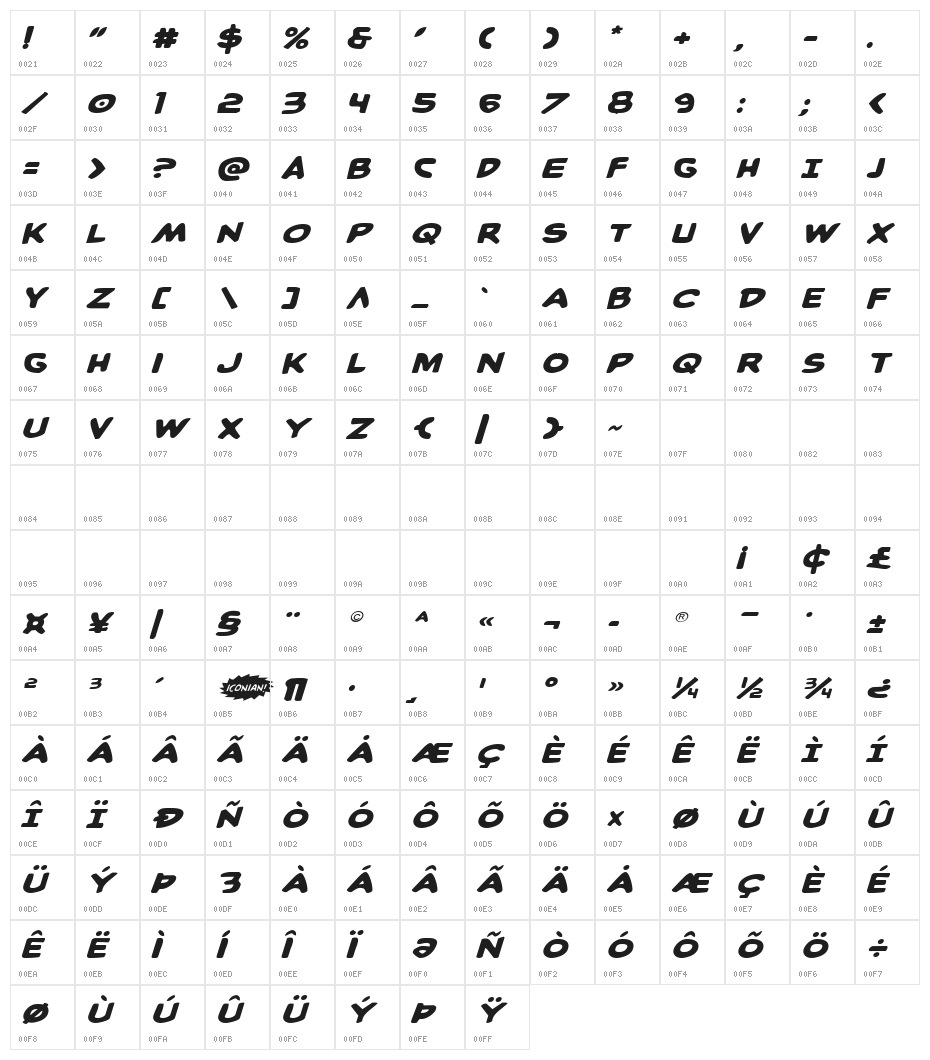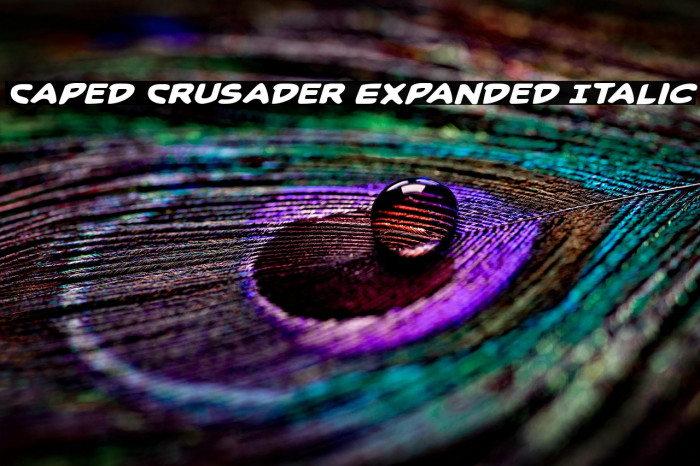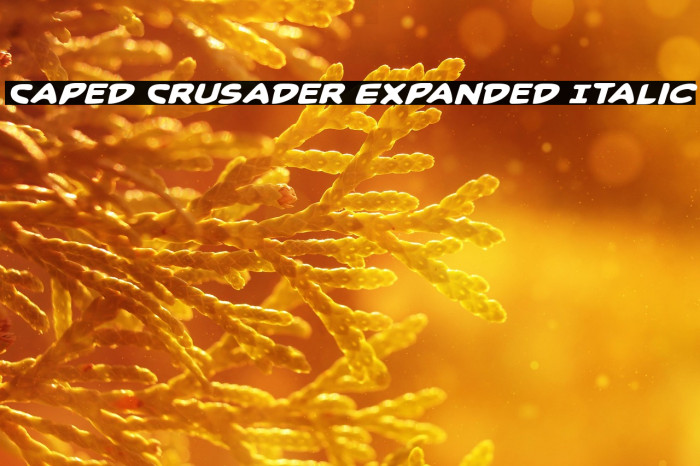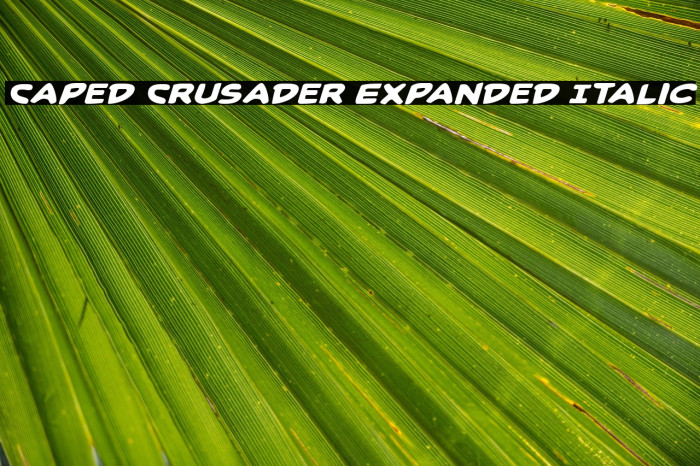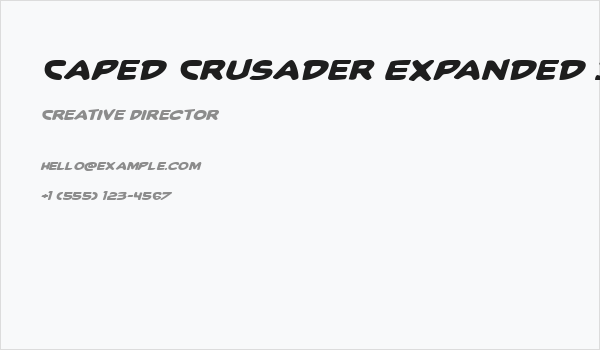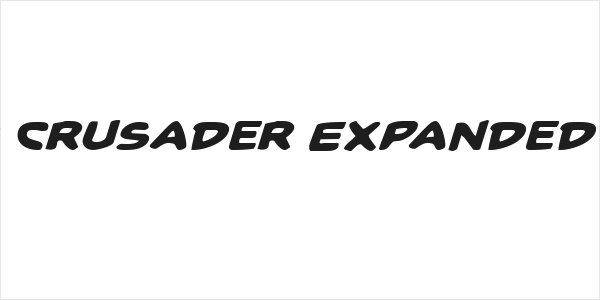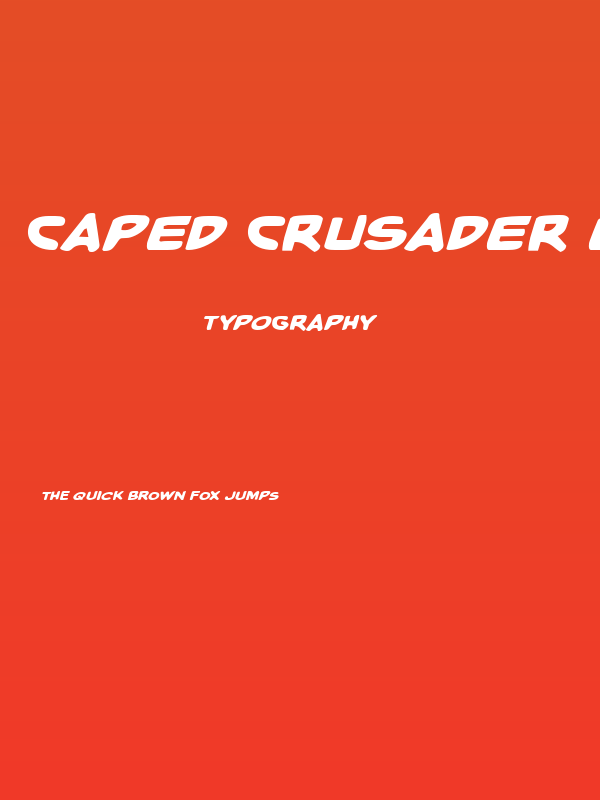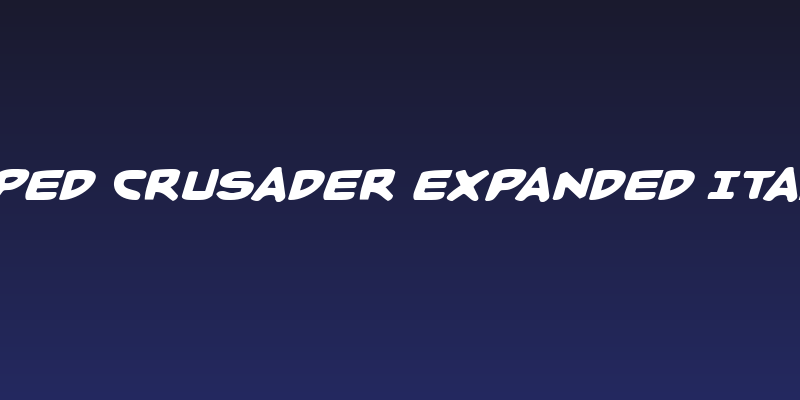
Caped Crusader Expanded Italic Font
Caped Crusader Expanded Italic Description
This font features a bold and dynamic style with a distinctly italicized slant, giving it a sense of movement and energy. The characters are expanded, providing a wide stance that enhances readability while maintaining a unique flair. The strokes are thick and consistent, contributing to a strong visual impact. The rounded edges soften the overall appearance, making it approachable yet assertive. This font is well-suited for projects that require a bold statement, such as branding, headlines, or posters. The inclusion of both uppercase and lowercase letters, along with numbers and special characters, ensures versatility across various applications.
| Proposed Projects | Ideal for branding, headlines, posters, and any project needing a bold statement. |